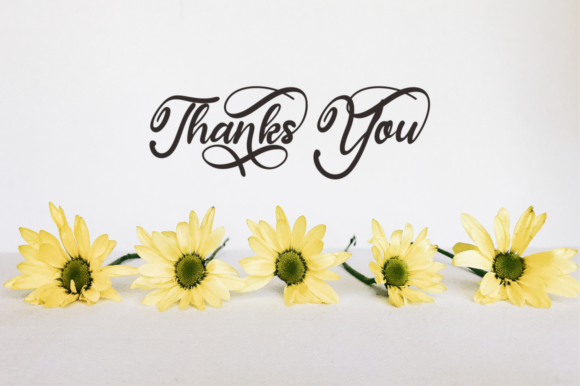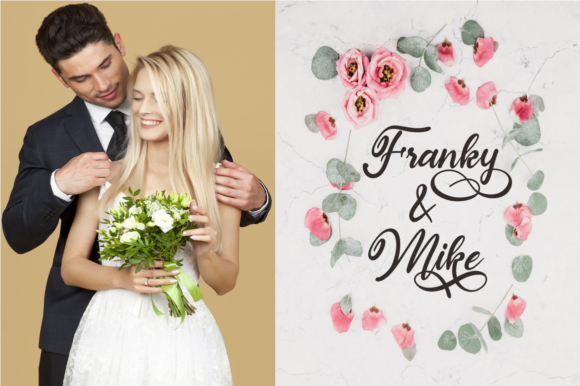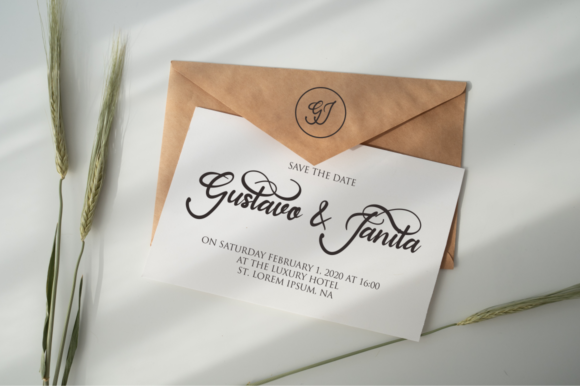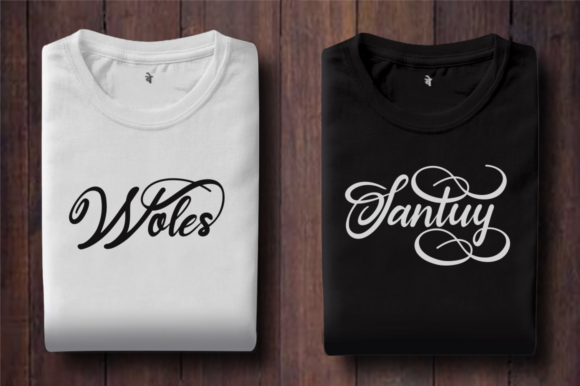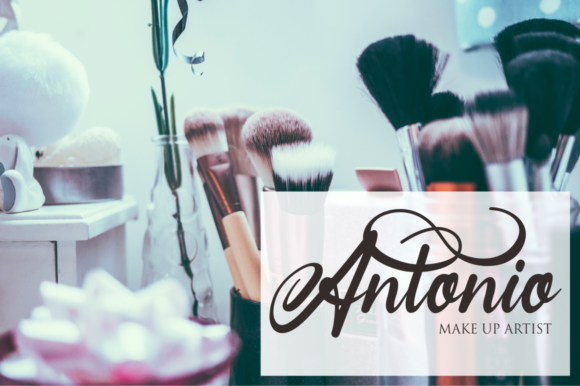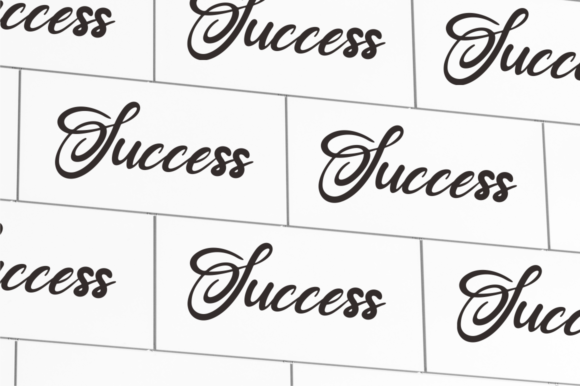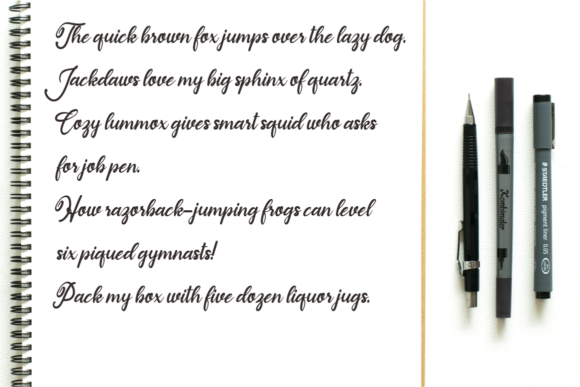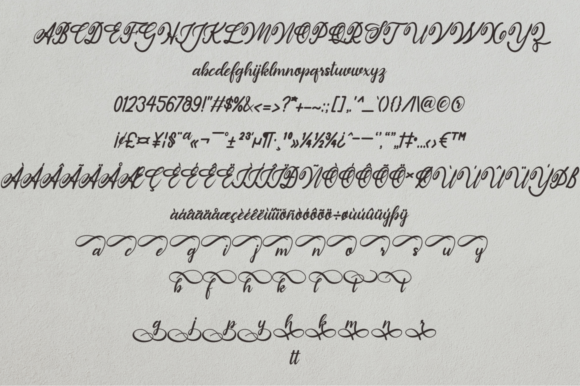
Sunbunny Font
About Sunbunny Font
Sunbunny is a modern calligraphy font with a fancy twist! It’s perfect for logos, name cards, magazine layouts, invitations, headers, and much more! Ignite your creativity with this gorgeous font.